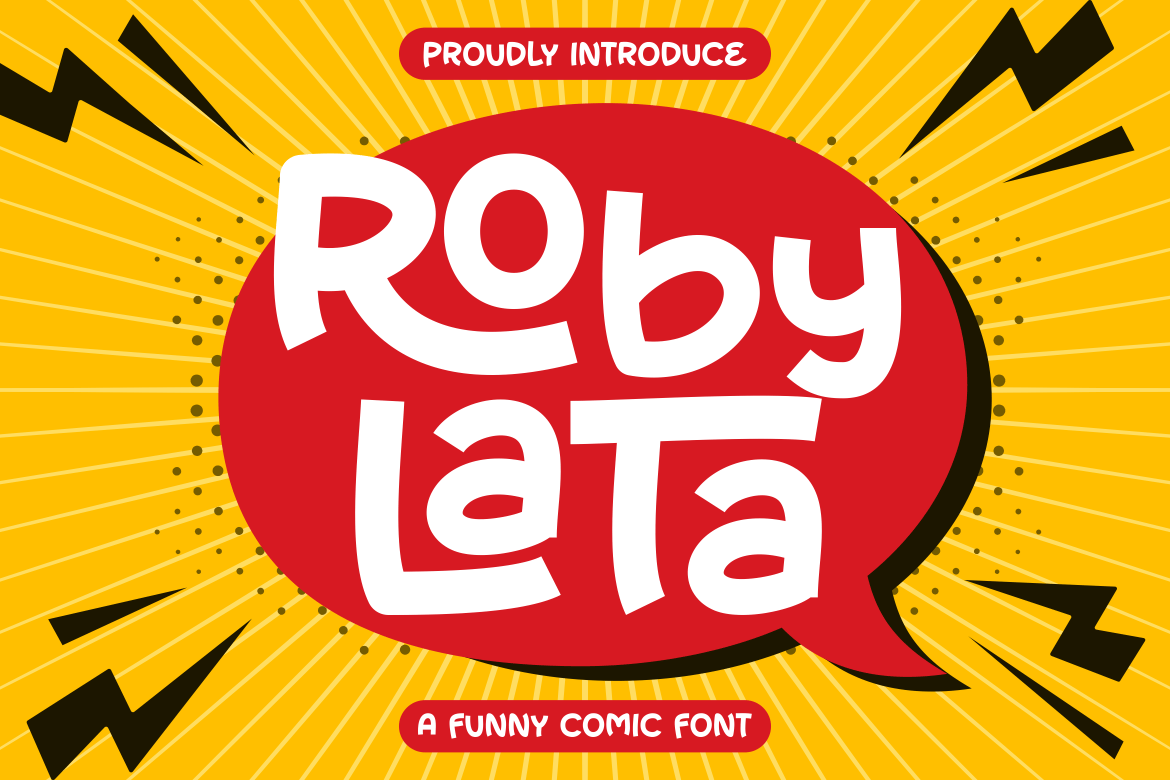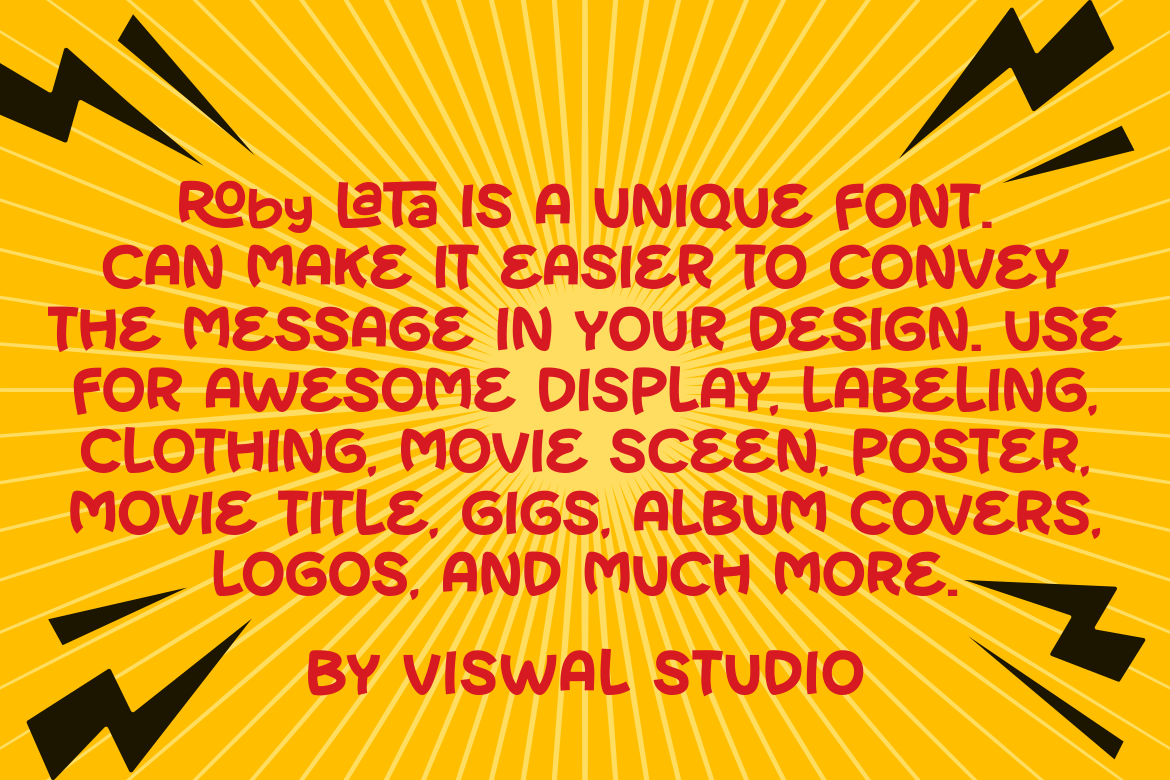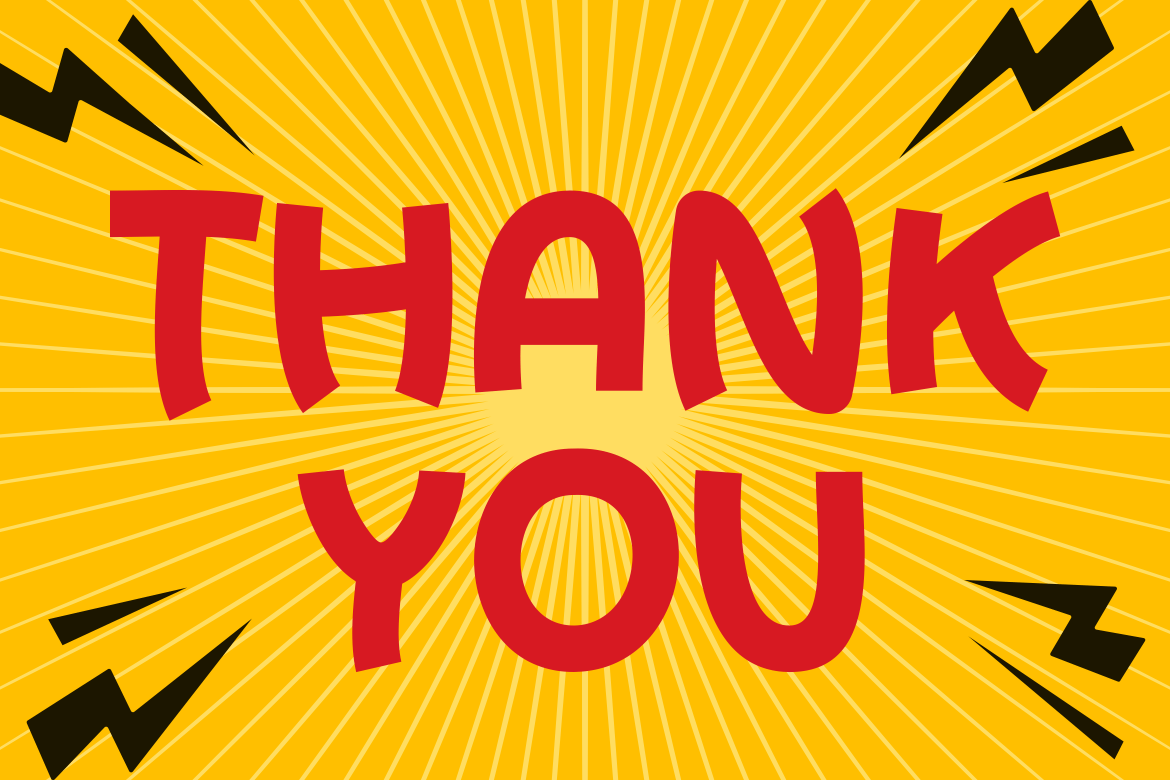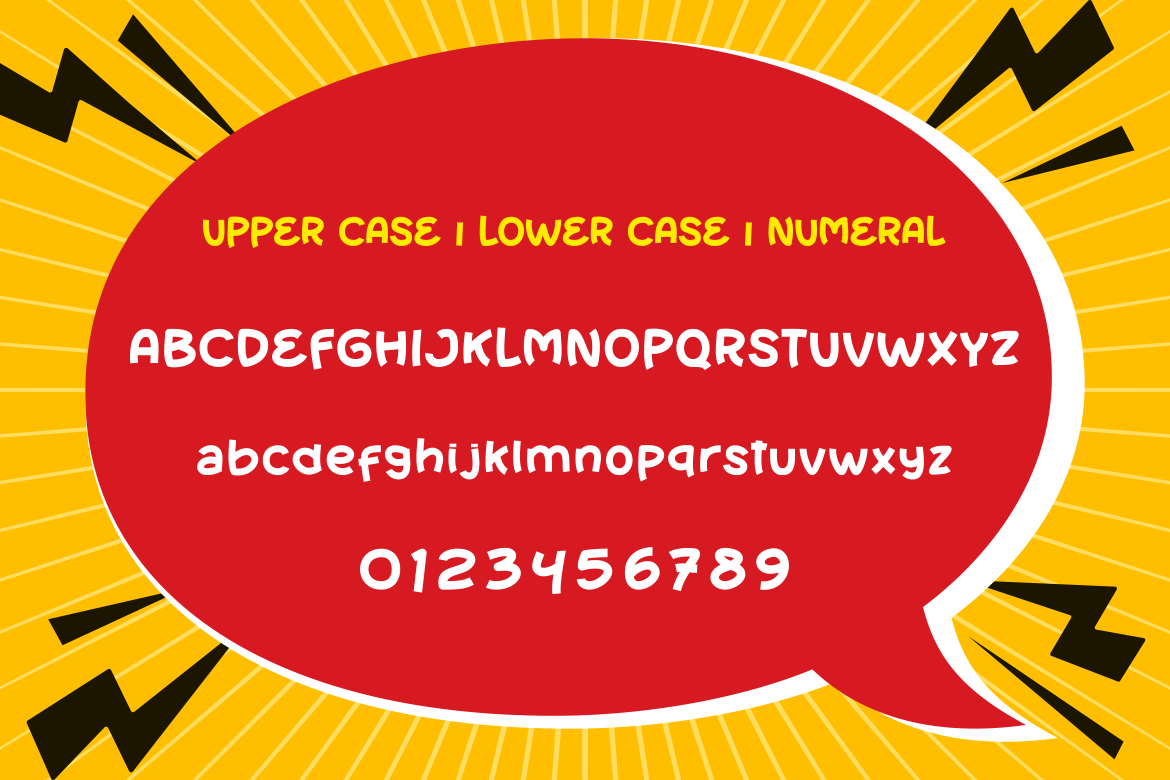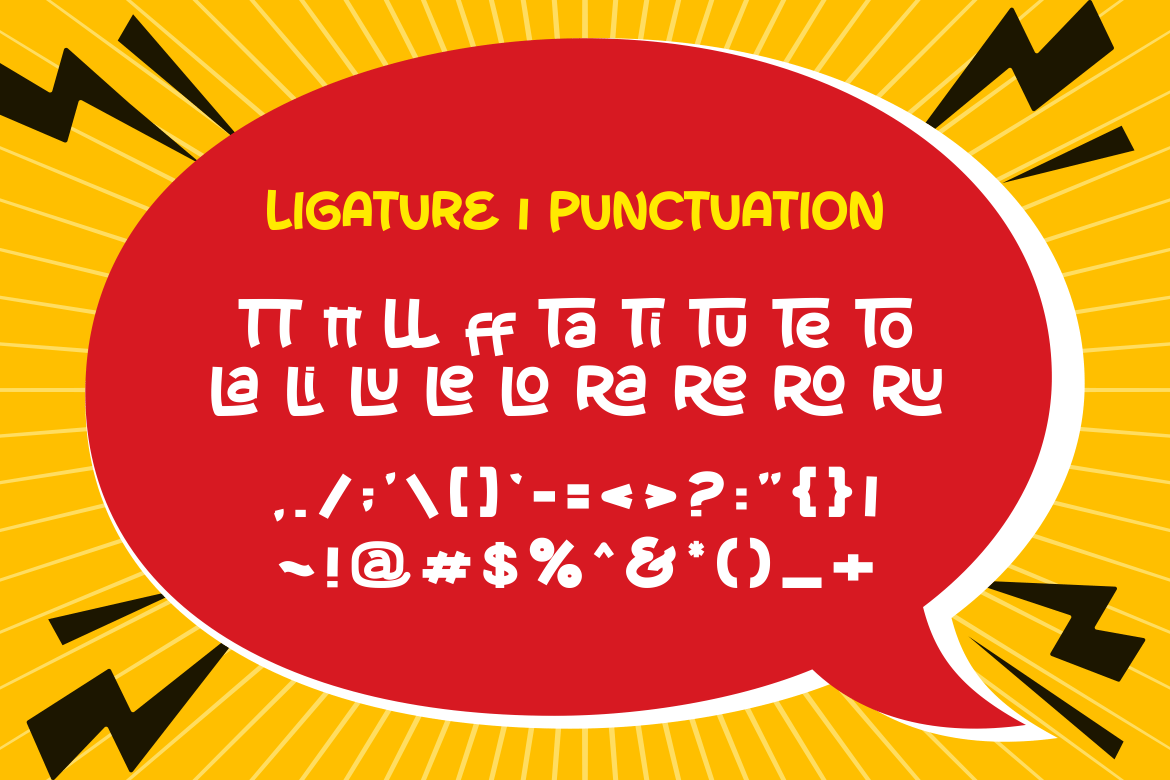
Presenting **Roby Lata** – Font is suitable for badge, labels, logo, branding, magazine, poster and etc. Our fonts have Uppercase & Lowercase, Numeral & Punctuation, Multilingual support and Opentype Features. For Amazing designs you can mix with other fonts as a complement.